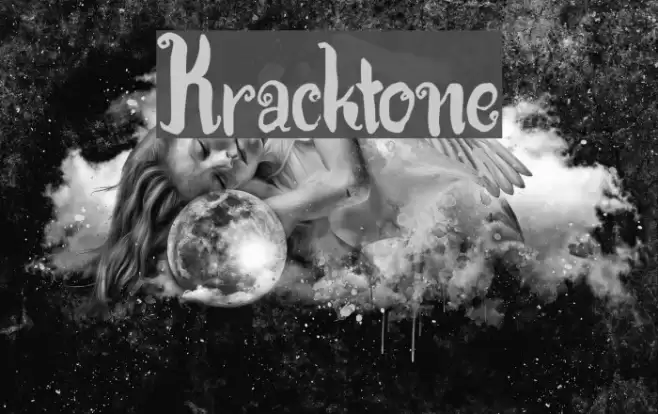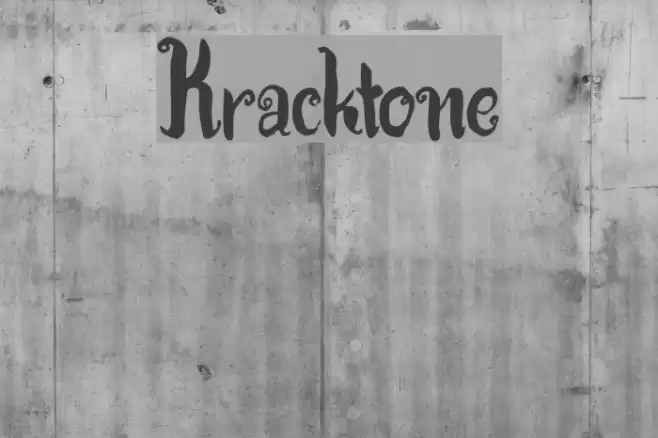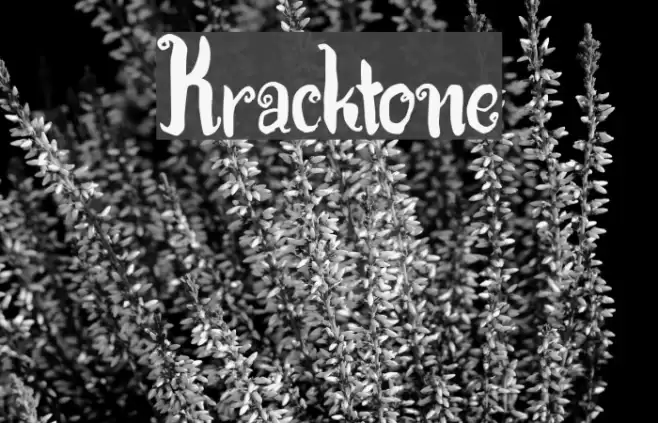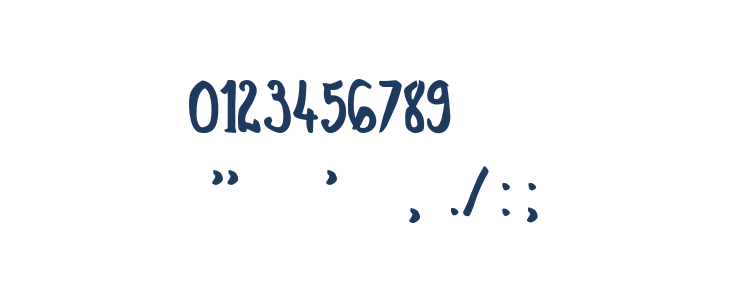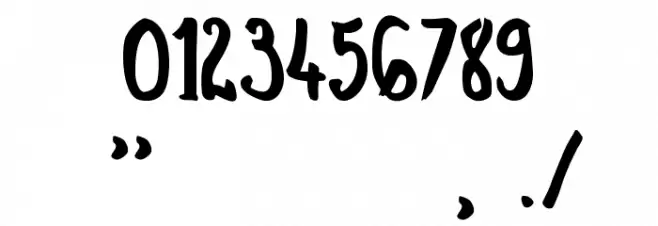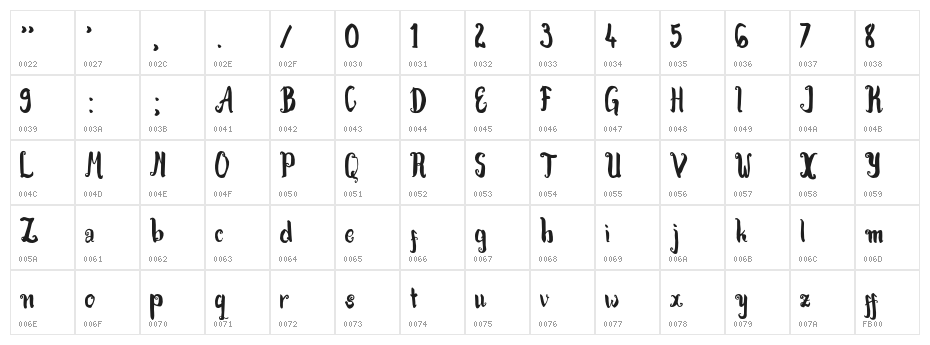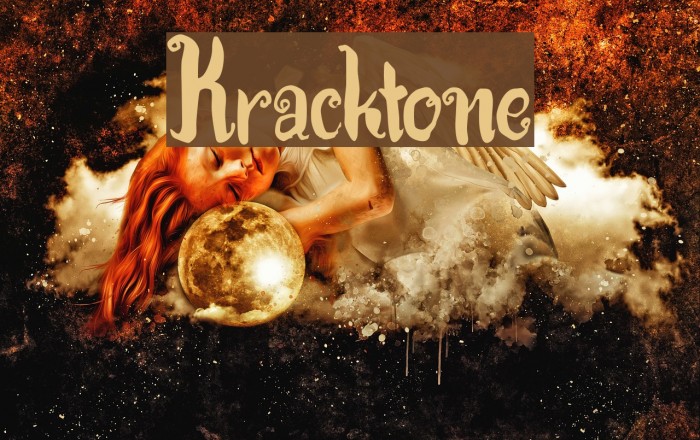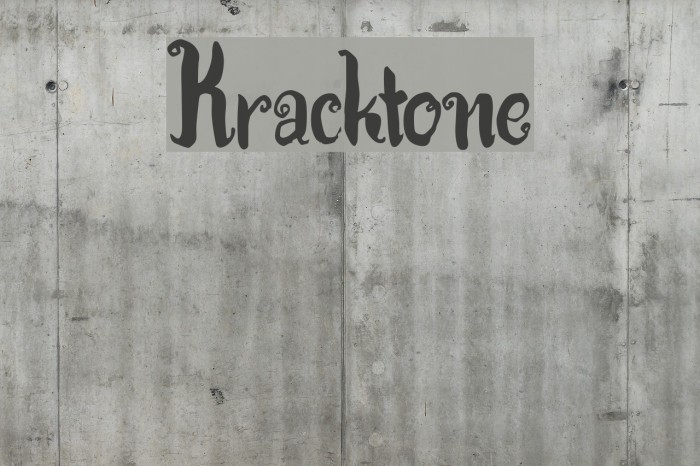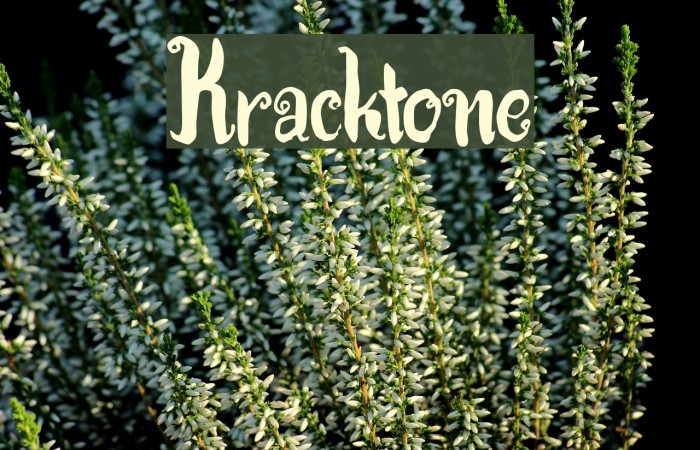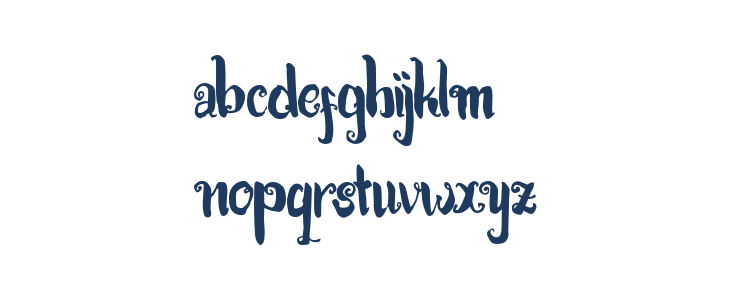
Kracktone Font
Kracktone Description
This font features a whimsical and playful design, characterized by its curly and decorative serifs. The letters have a hand-drawn quality, with varying stroke widths that add a dynamic and lively feel. The uppercase letters are bold and prominent, while the lowercase letters maintain the same playful style with slightly less emphasis. Numbers and special characters are consistent with the overall theme, making the font suitable for creative and artistic projects. The unique style of each character adds a touch of personality, making it ideal for designs that require a fun and engaging appearance.
A whimsical, decorative font with curly serifs and a playful, hand-drawn style from Uncategorized fonts.
- Proposed Projects: Ideal for children's books, playful branding, greeting cards, and creative posters.